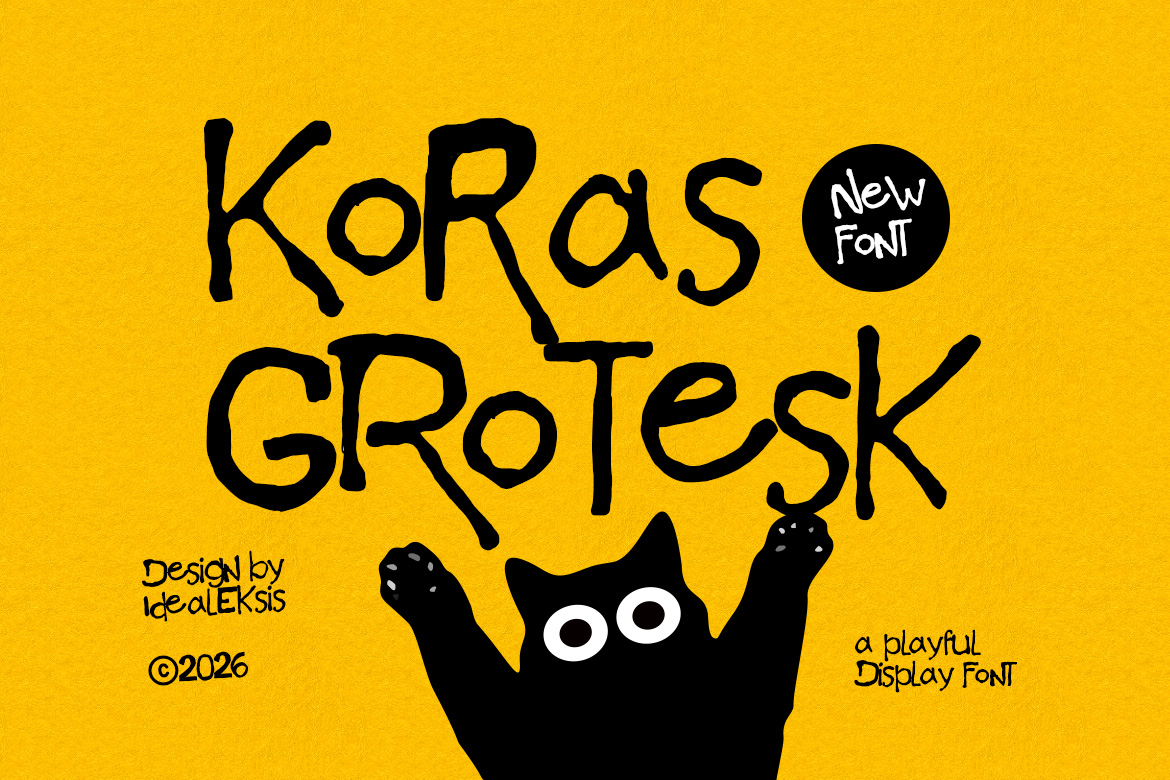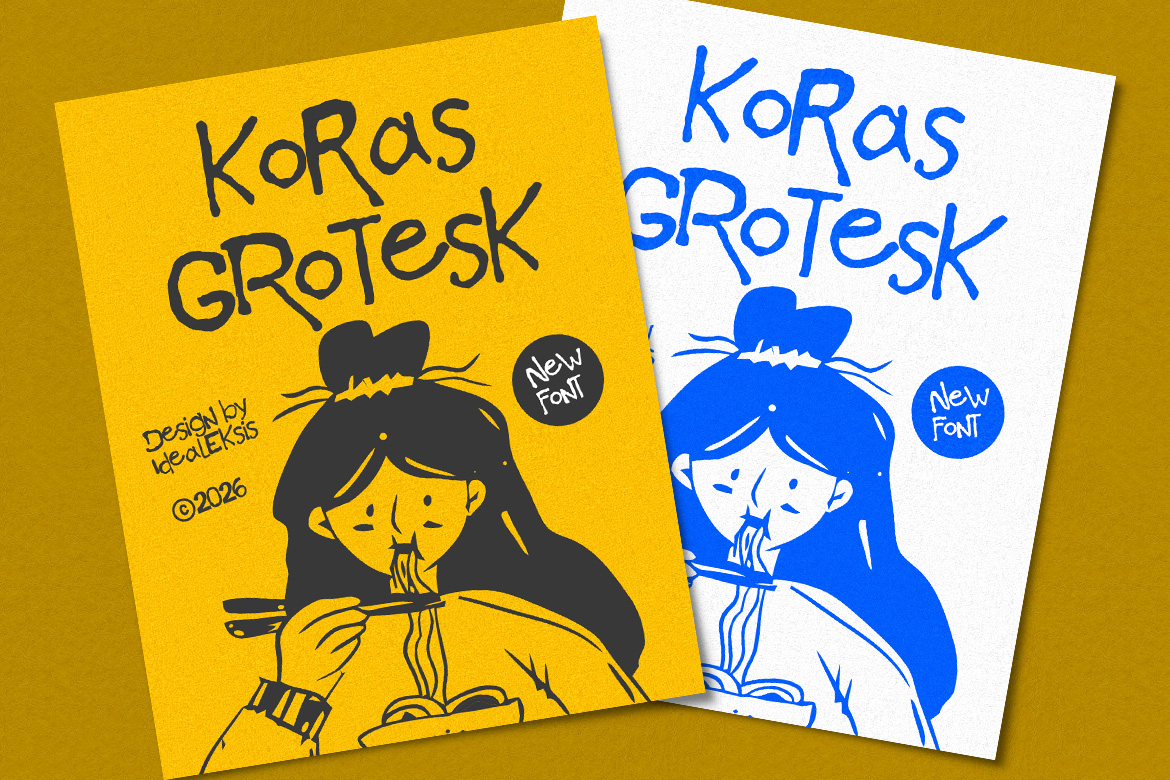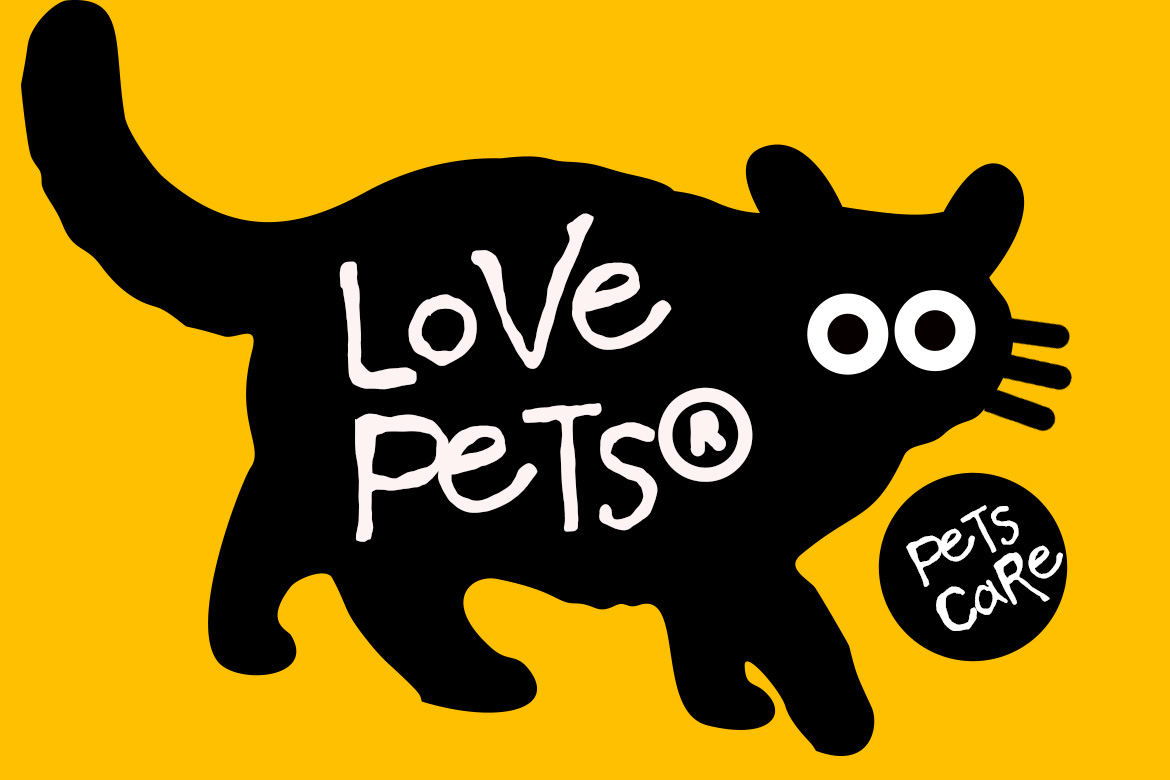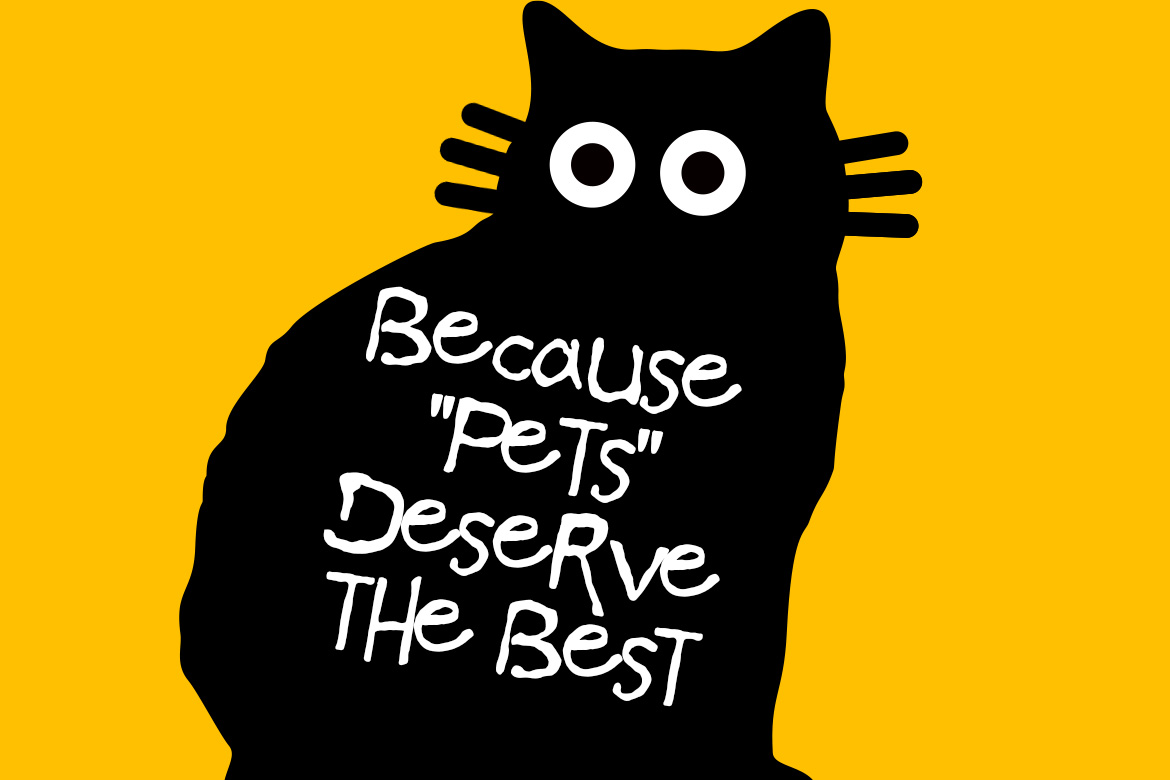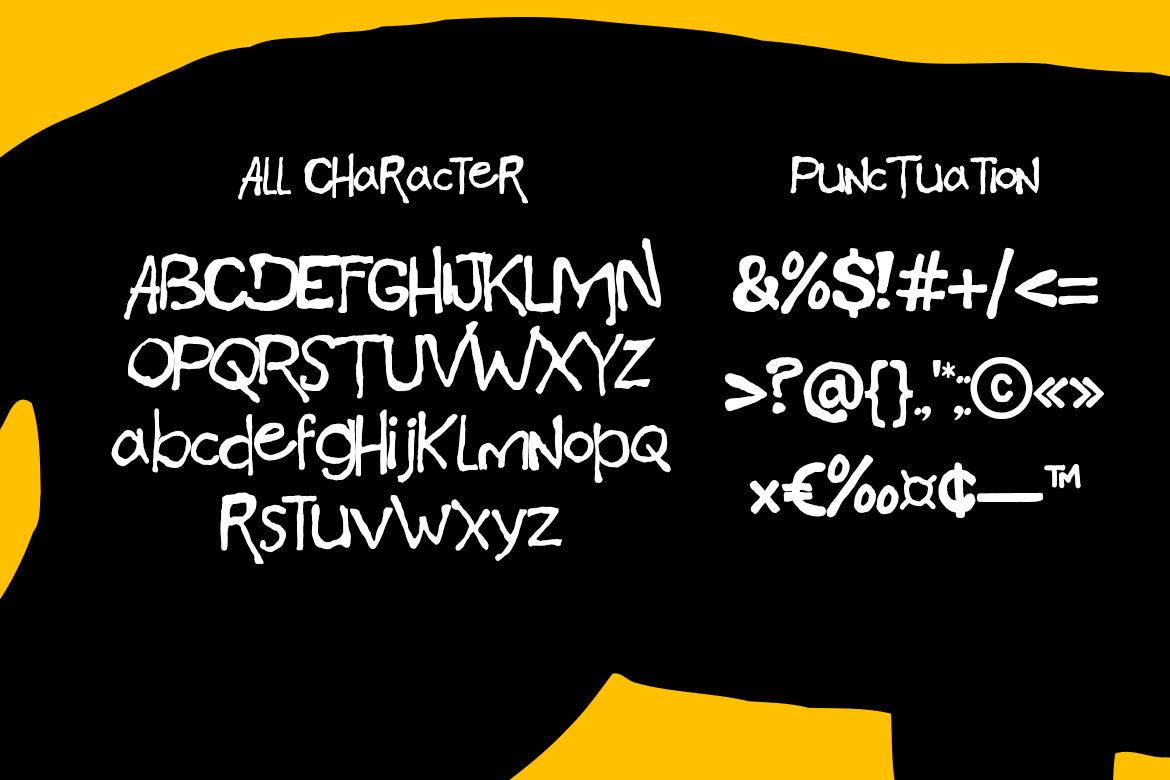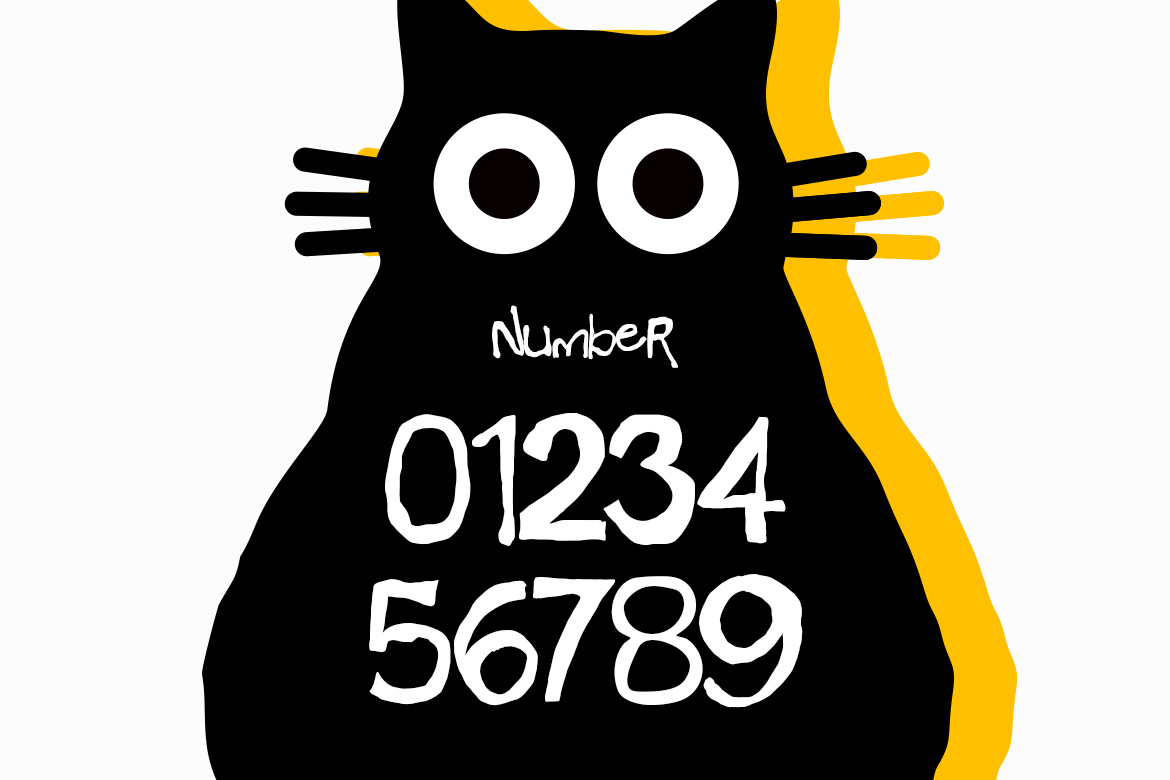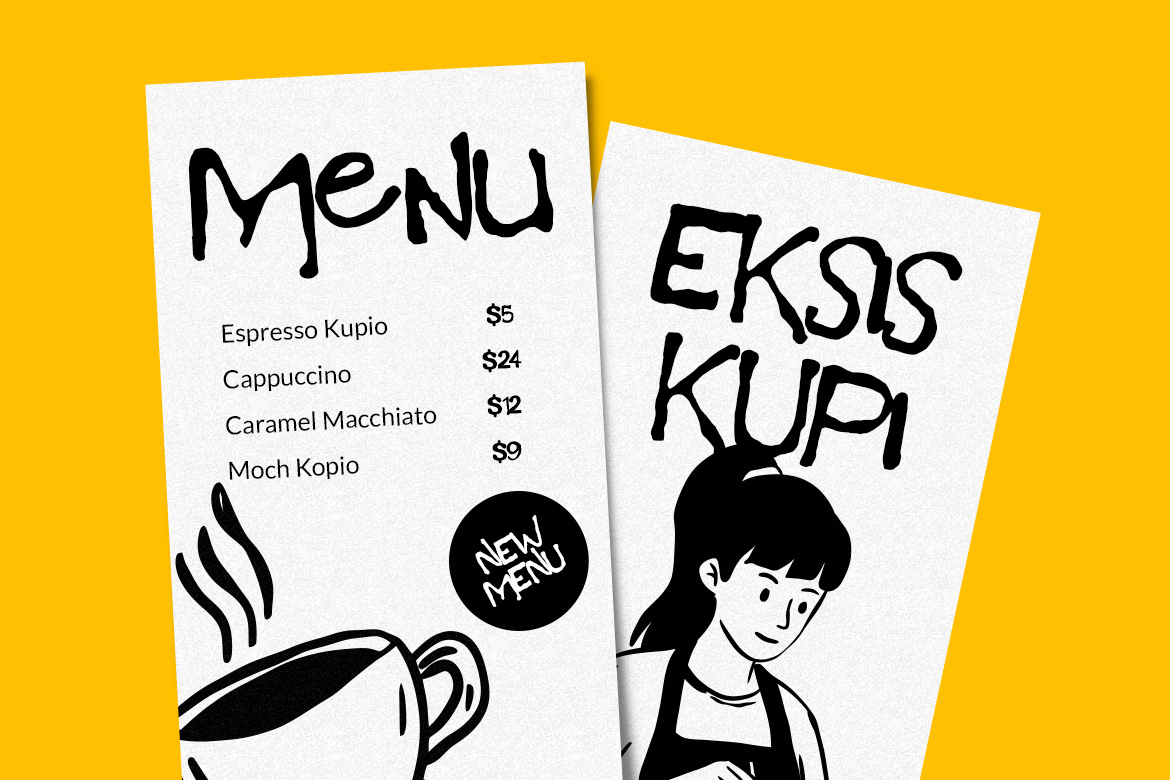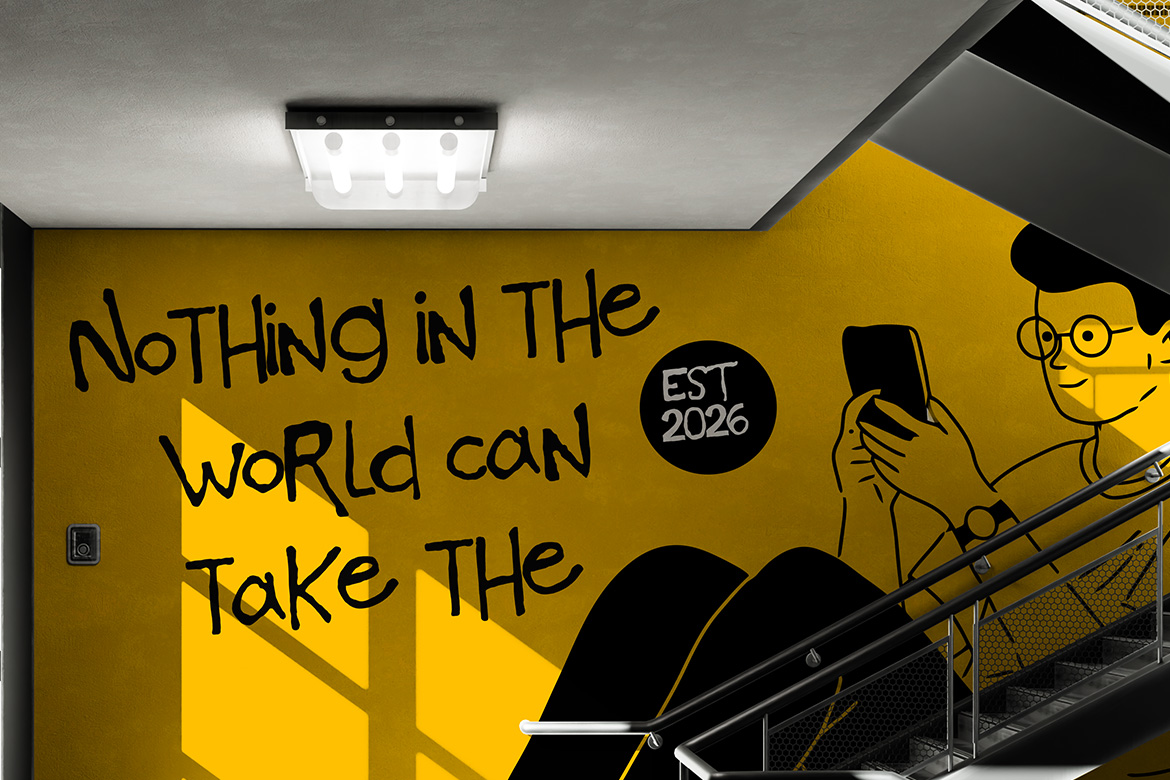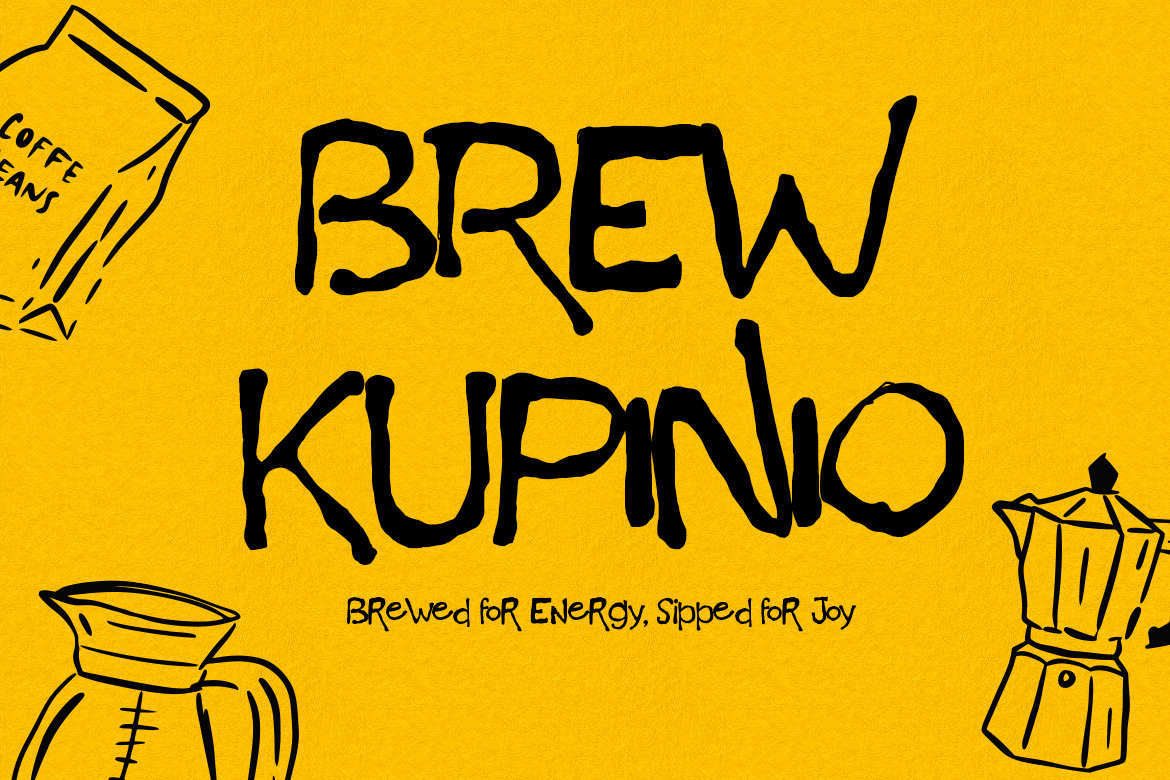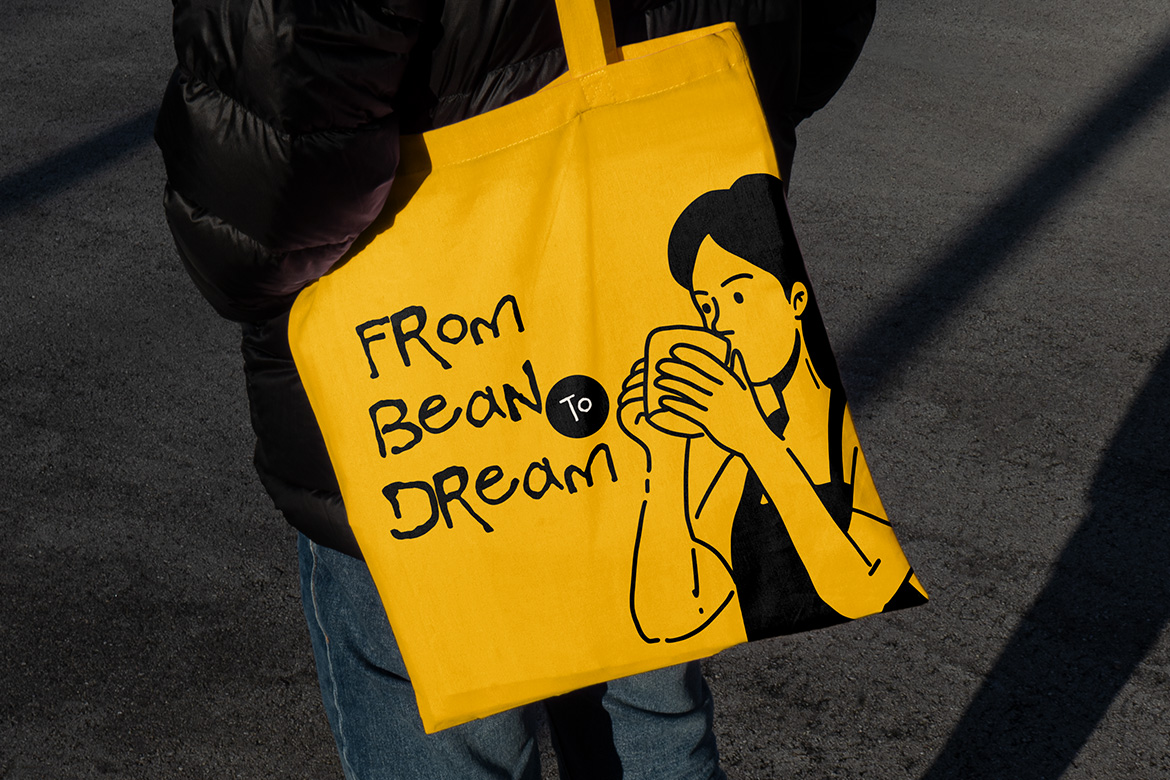
Koras Grotesk
This font showcases a whimsical, hand-drawn aesthetic characterized by irregular stroke weights and a charmingly uneven baseline. The letterforms exhibit a high degree of spontaneity, with jagged edges and varying widths that provide a raw, organic feel. Its glyphs are expressive, mixing uppercase and lowercase forms seamlessly to create a dynamic visual rhythm. The overall vibe is energetic and informal, making it ideal for creative projects like children's books, poster art, and branding that requires a touch of personality and warmth. In Package : OTF TTF WOFF WOFF2 Feature : Uppercase (All Caps) Numerals Punctuation Easy To Install